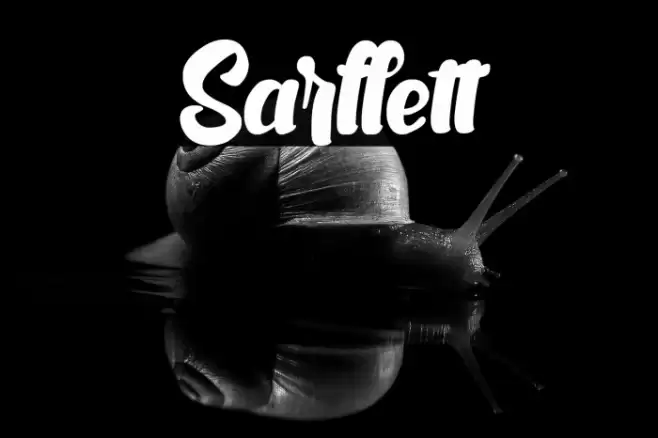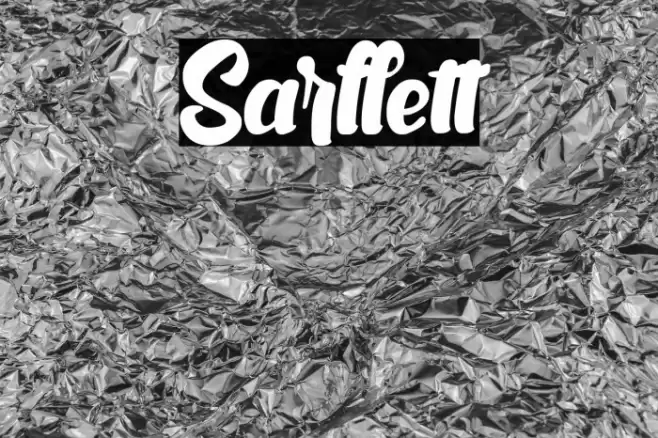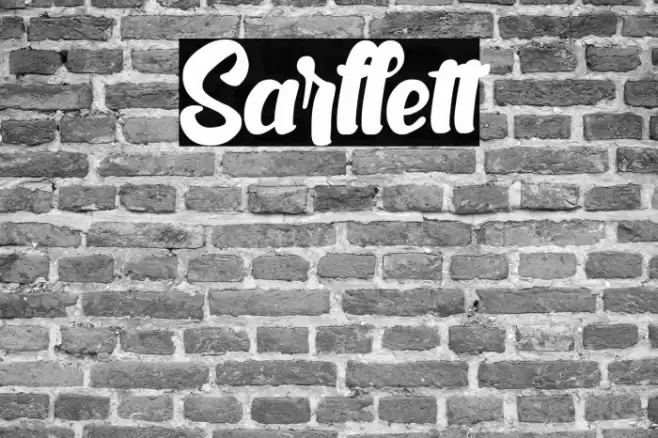
Sarllett Font
Sarllett Description
This font features a bold and dynamic script style, characterized by its flowing, cursive letterforms. The strokes are thick and consistent, providing a strong visual impact. The uppercase letters are particularly ornate, with sweeping curves and flourishes that add a sense of elegance and movement. The lowercase letters maintain a cohesive style, with rounded edges and smooth connections between characters. The numerals are equally bold, ensuring readability while maintaining the overall aesthetic. Special characters are designed to match the font's energetic style, making it suitable for a variety of creative applications.
A bold, dynamic script font with flowing, cursive letterforms from Uncategorized fonts.
- Proposed Projects: Ideal for branding, invitations, posters, and any project requiring a touch of elegance and flair.
- Use Case: Logos, Headlines, Invitations